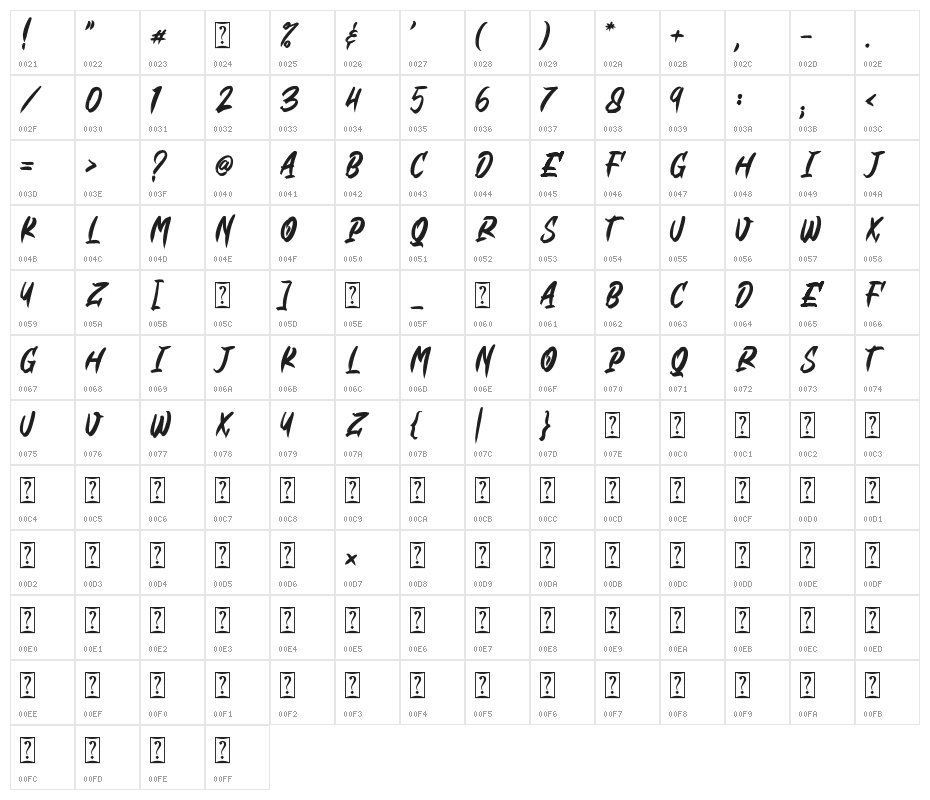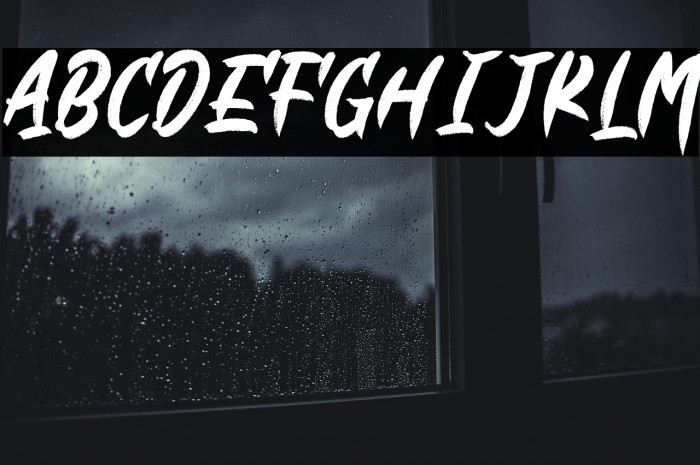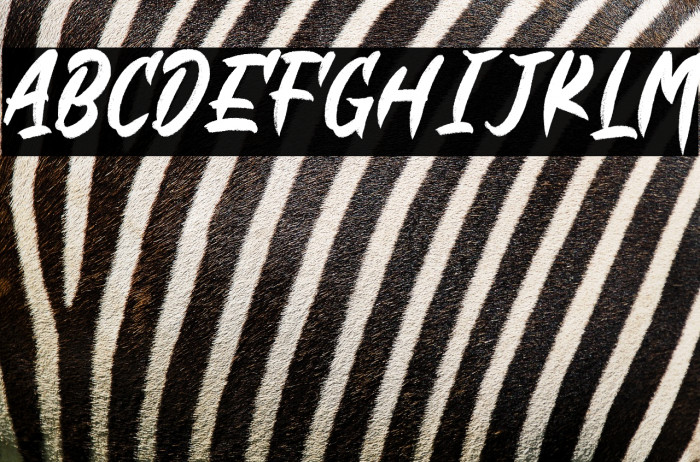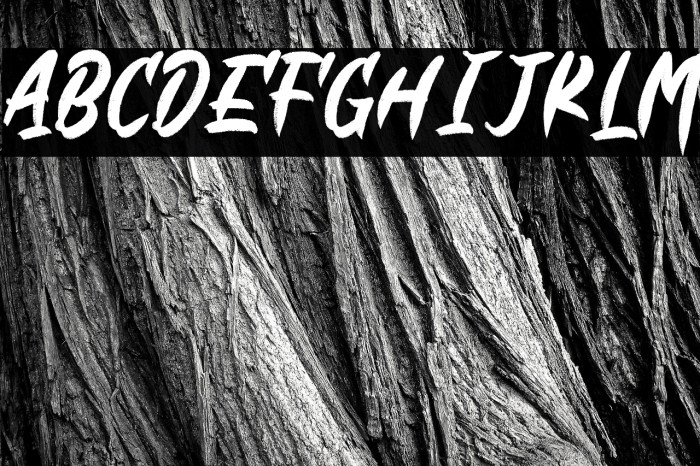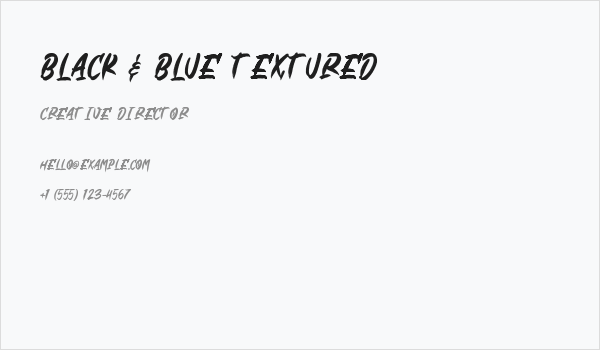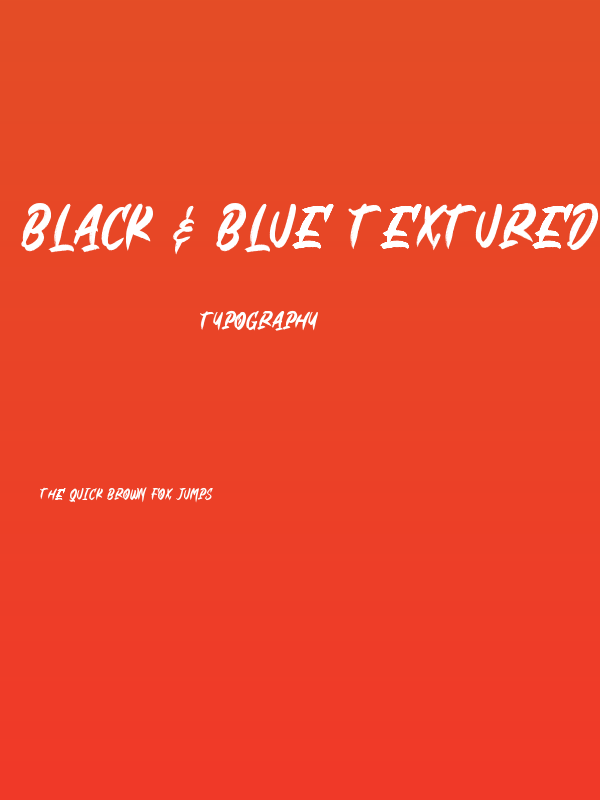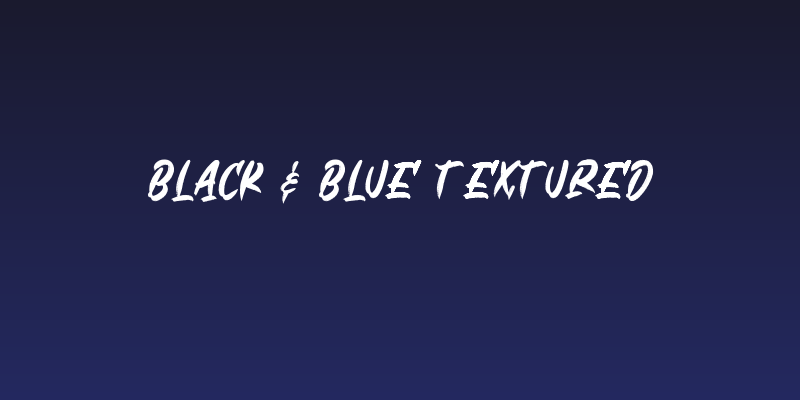
Black & Blue Textured Font
Black & Blue Textured Description
This font features a bold, textured style with a dynamic and energetic appearance. The letters are slightly slanted, giving a sense of movement and fluidity. The strokes are thick and uneven, adding a hand-painted or brush-like effect. The uppercase and lowercase letters maintain a consistent style, with the uppercase being more pronounced. Numbers and special characters follow the same aesthetic, ensuring uniformity across all glyphs. The overall design is striking and attention-grabbing, making it suitable for projects that require a strong visual impact.
| Proposed Projects | Ideal for posters, branding, merchandise, and any design needing a bold statement. |